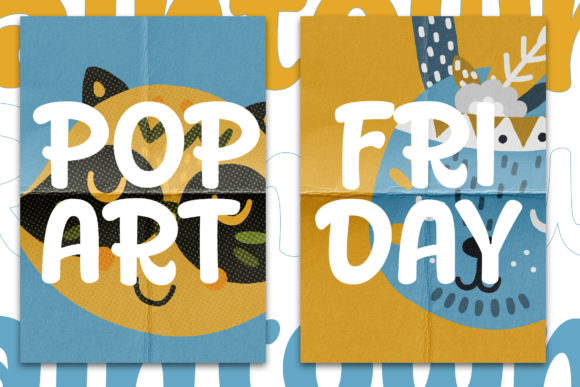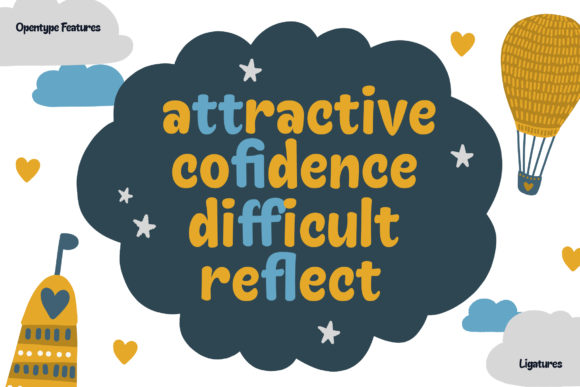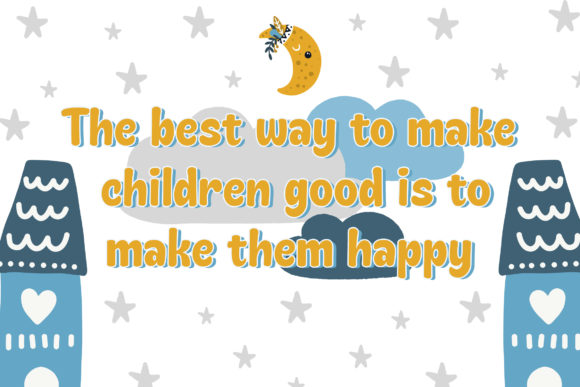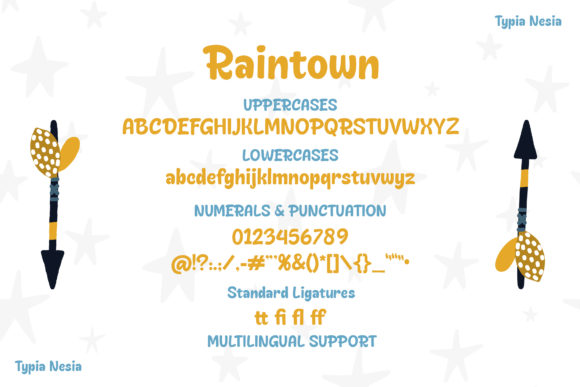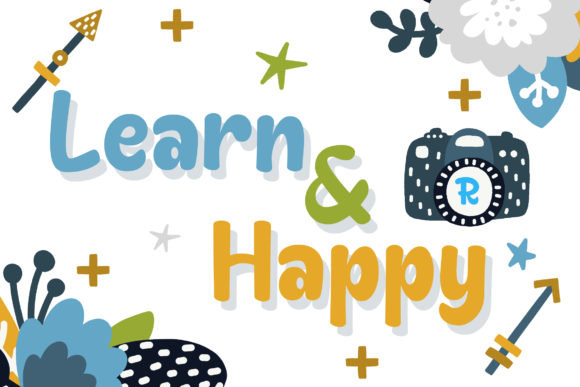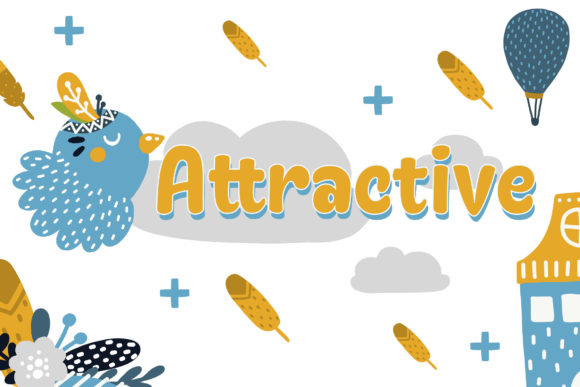
Introduction to Raintown Font
Have you ever been in the middle of a creative project, pouring your heart and soul into a design, and then suddenly, you need that one special element to make it truly pop? For designers, this moment can be a game-changer. It’s the moment when you stumble upon the perfect font, and everything falls into place.
This is exactly what happens when you discover the Raintown Font. Its cute and quirky charm is infectious, and it’s guaranteed to add a joyful touch to any design. Whether you’re working on a branding project, a social media graphic, or a digital advertisement, Raintown Font is the perfect design resource to elevate your creative vision.
Key Features of Raintown Font
- High-quality design: Raintown Font is a professional-grade typeface perfect for any creative project requiring a touch of elegance and sophistication.
- Transparent background: This feature allows for seamless integration with various design elements and backgrounds, making it an ideal design resource.
- Unique characteristics: Raintown Font features a distinctive, modern design with a range of styles and weights, making it a versatile and highly customizable design resource.
- Perfect for a variety of design projects: From branding and advertising to packaging and signage, Raintown Font is a high-quality design solution for any creative project.
Honest Review: Raintown Font
I recently stumbled upon the Raintown Font, and I must say it’s been a game-changer for my creative projects. As a designer, I’m always on the lookout for high-quality fonts that can elevate my designs and communicate the message effectively. The Raintown Font does just that.
Here are some of the things that work well with the Raintown Font:
- ✨ High-quality design: The font is crisp and clean, making it perfect for any creative project.
- ✨ Versatile: The Raintown Font can be used for a variety of design purposes, from headings to body text.
- ✨ Easy to use: The font is highly customizable and can be easily integrated into any design software.
- ⚠️ Limited character set: The font only includes a limited character set, which may not be suitable for designers who need to work with non-English characters.
- ⚠️ Not ideal for small text: The font may not be the best choice for small text, as it can become difficult to read.
Overall, I’m really impressed with the Raintown Font. It’s a valuable addition to any designer’s toolkit, and I highly recommend it as a design resource. Just be aware of its limitations, and you’ll be all set for creating amazing designs.
Tips for Getting the Most Out of Raintown Font
To get the most out of the Raintown Font, experiment with different sizes, colors, and combinations of fonts to create a unique look. Consider using the font in conjunction with other high quality design resources to elevate your creative project.
The Raintown Font is ideal for a variety of design projects, including branding, marketing materials, and social media graphics. Its transparent background makes it perfect for use on images or videos, while its clean and modern design makes it suitable for a range of creative applications.